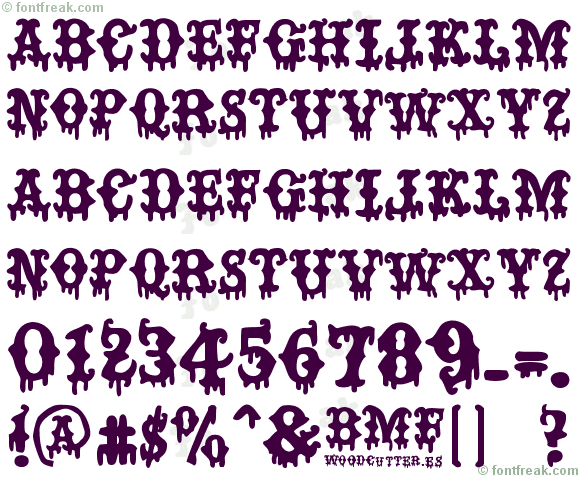
BAD MOTHER FUCKER
About BAD MOTHER FUCKER
The BAD MOTHER FUCKER font by woodcutter Manero is a striking display typeface that effortlessly captures attention with its bold and whimsical design. Characterized by its unique letterforms, this font features a playful yet edgy aesthetic that blends decorative elements with a hint of irreverence. The irregular stroke weight and dripping details give it a distinctive, almost graffiti-like appearance, making it ideal for projects that require a strong visual impact.
With its all-caps design and pronounced contrast, the BAD MOTHER FUCKER font is perfect for a variety of use cases. It shines in high-energy contexts, making it an excellent choice for movie posters, particularly those in the action or comedy genres. Additionally, it can be effectively used in urban-themed restaurant menus, where its boldness can complement a lively atmosphere. Graphic designers might also find it suitable for merchandise branding, adding a touch of personality to apparel or accessories. Furthermore, content creators looking to make a statement on social media can use this font to enhance engagement with visually arresting graphics.
What sets this font apart is its unapologetic flair, making it not only a tool for communication but also a statement piece. Its ability to evoke a sense of fun and rebellion ensures that any project featuring this font will stand out in a sea of conventional typography. Whether for personal or commercial use, this typeface is a bold choice that leaves a lasting impression.